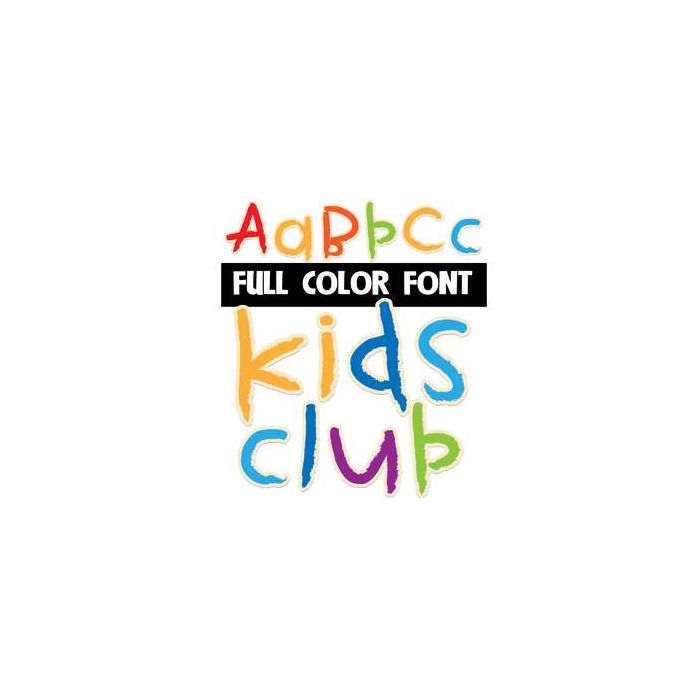
This full-color font looks like it was written in crayon. This font works best for titles, displays, posters and more. Please note color fonts will show as black in non compatible programs. This font type is compatible with Silhouette Studio.